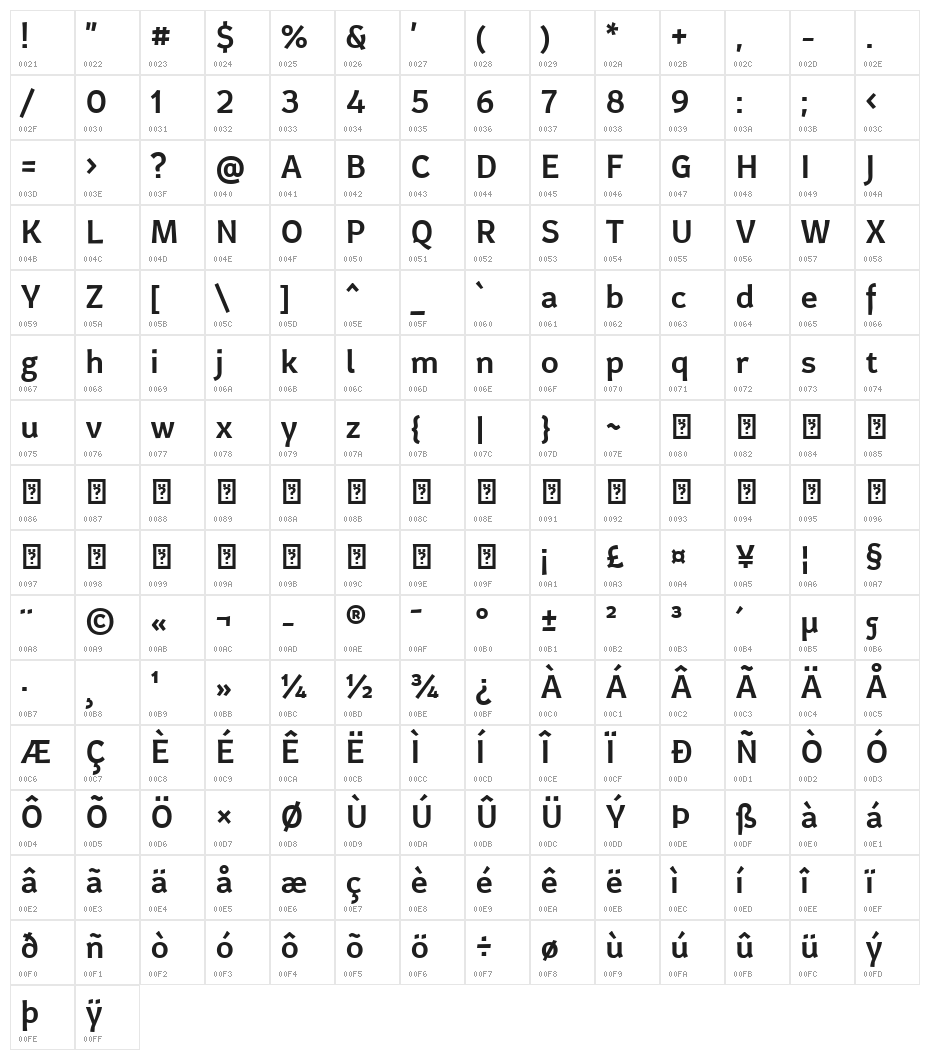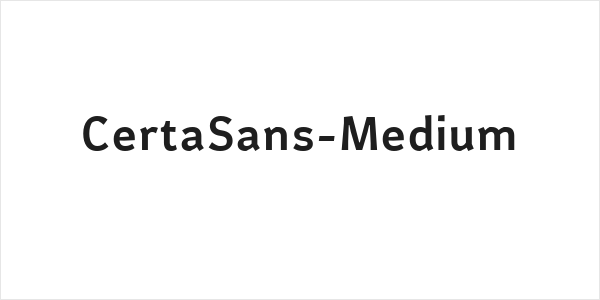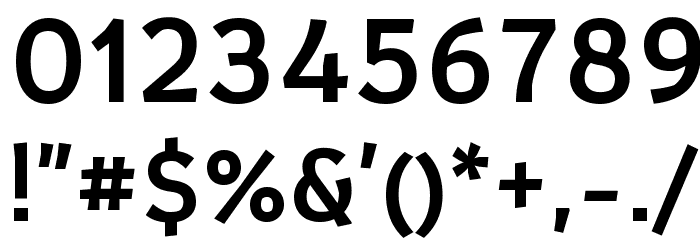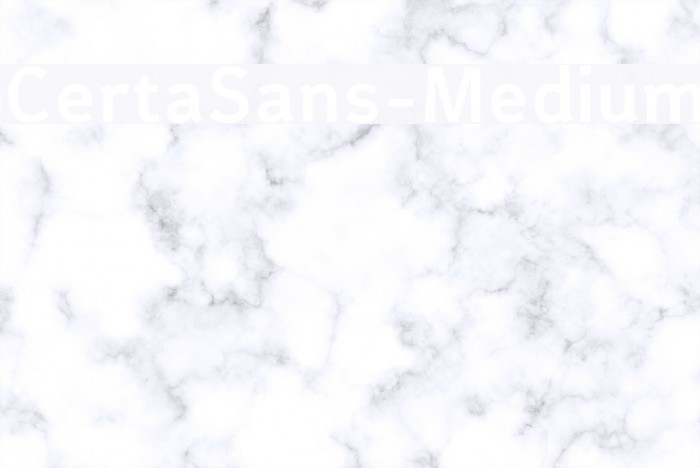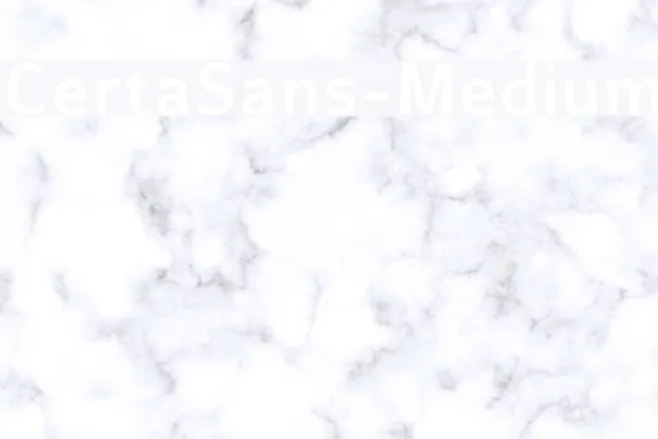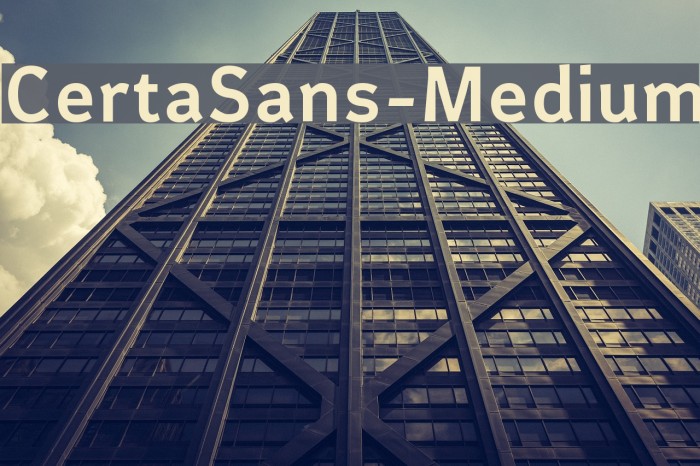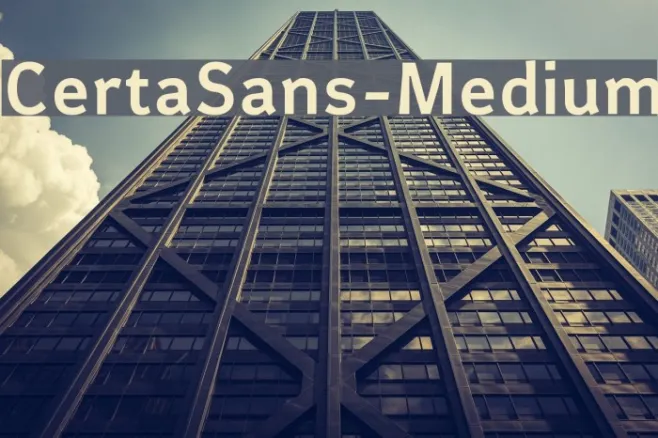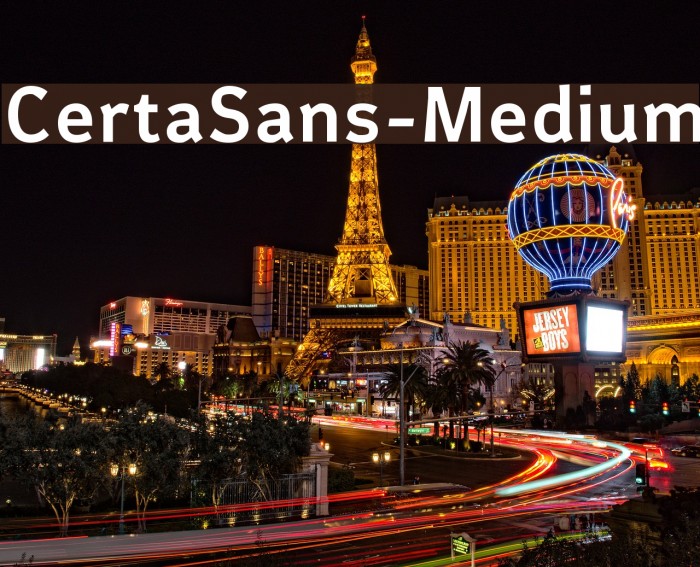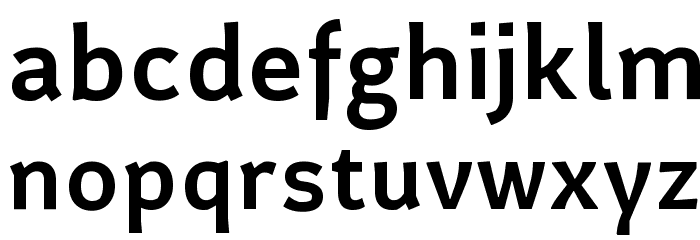
CertaSans-Medium Font
CertaSans-Medium Description
This font exhibits a clean and modern sans-serif style, characterized by its straightforward and geometric letterforms. The strokes are uniform, providing a balanced and harmonious appearance. The uppercase letters are bold and assertive, while the lowercase letters maintain a consistent height and width, ensuring readability. The numerals are clear and distinct, making them suitable for various applications. Special characters are well-defined, adding versatility to the font's use. Overall, this font's simplicity and clarity make it ideal for both digital and print media.